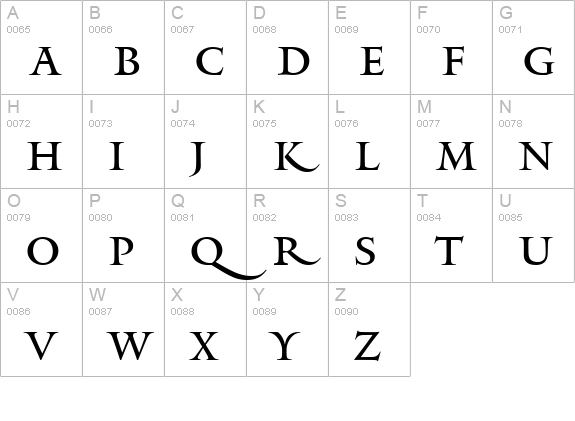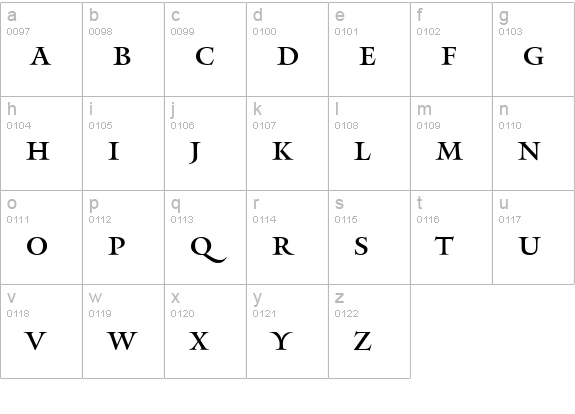
Monument Alternate Font Details
Monument Alternate font is a striking display typeface that exudes elegance and sophistication. With its clean lines and modern aesthetic, this font is perfect for creating eye-catching headlines, logos, and other design projects. The alternate characters add a unique touch to your designs, making them stand out from the crowd. And the best part? Monument Alternate font is completely free to download at FontsMarket.com! Whether you're a designer looking to add a touch of class to your projects or a business owner in need of a stylish font for your branding, Monument Alternate font has got you covered. Download it today and elevate your designs to the next level!